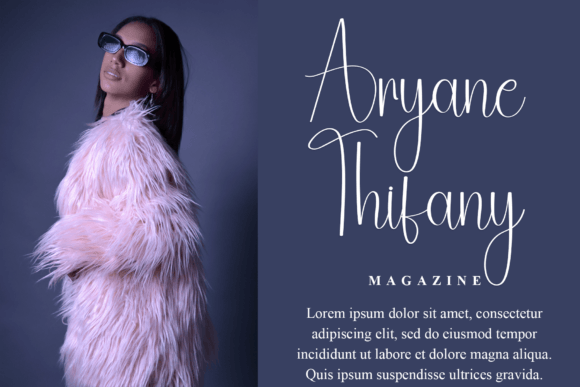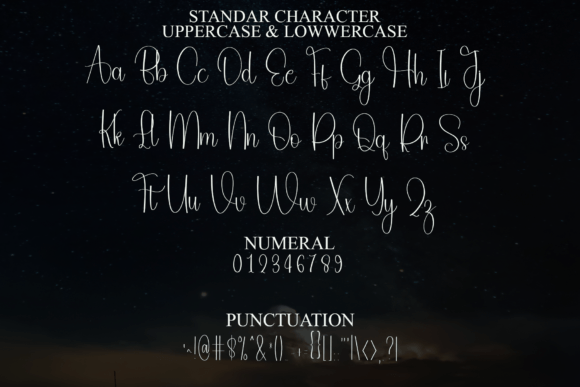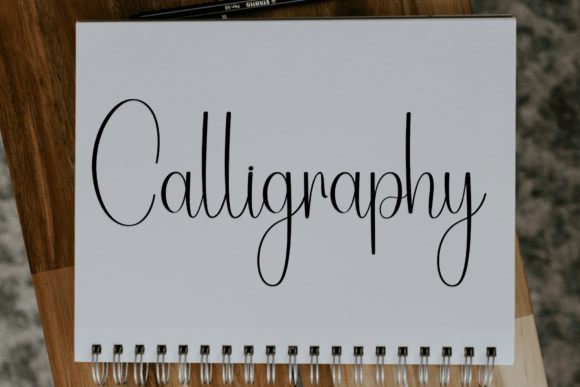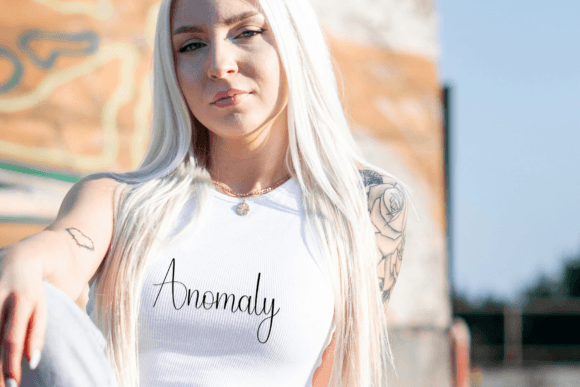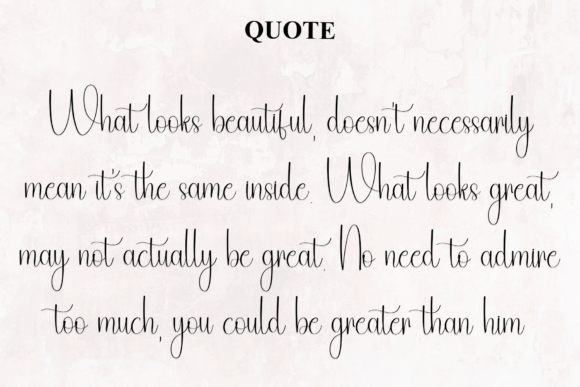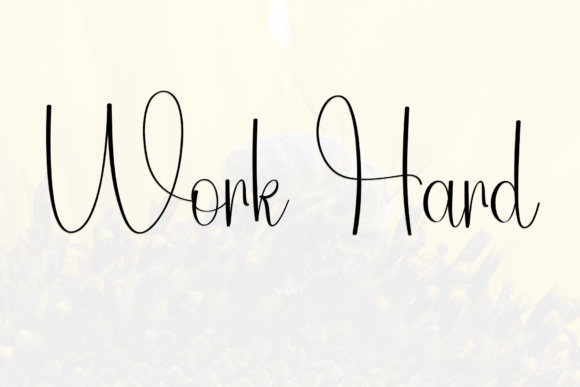
Diligent Font: Elevate Your Designs with Elegance and Sophistication
In the world of typography, fonts play a crucial role in conveying the tone and personality of a design. For crafters, designers, and anyone looking to add a touch of elegance to their projects, the Diligent Font is an excellent choice. This delicate, thin handwritten font is designed to bring a refined and personal touch to your creations, making it perfect for a variety of applications.
The Characteristics of Diligent Font
Diligent Font is characterized by its slender lines, which give it a soft, graceful appearance. This font is meticulously crafted to exude elegance and neatness, making it an ideal selection for designers who aim to create sophisticated and stylish designs. The thin strokes of the Diligent Font contribute to its refined look, setting it apart from more robust and bold fonts.
Why Choose Diligent Font?
There are several reasons why designers and crafters might prefer the Diligent Font for their projects:
• Elegant Appearance: The delicate and thin nature of the font gives it an inherently elegant look, suitable for designs that require a touch of sophistication.
• Versatility: Diligent Font can be used across various design projects, including but not limited to, branding, packaging, stationery, and digital media.
• Readability: Despite its thin lines, the Diligent Font maintains excellent readability, ensuring that your message is conveyed clearly and effectively.
• Personal Touch: The handwritten nature of the font adds a personal and humanizing element to designs, making them more relatable and engaging.
Applications of Diligent Font
The Diligent Font’s versatility and elegant appearance make it suitable for a wide range of applications:
• Branding and Logo Design: Use Diligent Font to create a sophisticated and memorable brand identity.
• Stationery and Invitations: Add a touch of elegance to your wedding invitations, greeting cards, and personal stationery.
• Digital Media: Enhance your website, blog, or social media graphics with the refined look of Diligent Font.
• Packaging: Stand out with elegant and eye-catching packaging designs that utilize the Diligent Font.
Tips for Using Diligent Font Effectively
To maximize the impact of the Diligent Font in your designs, consider the following tips:
• Pair with Complementary Fonts: Combine Diligent Font with other fonts that complement its elegance, such as bold sans-serifs or other refined scripts.
• Adjust Line Spacing: Ensure adequate line spacing to maintain readability and give your text a breathable, elegant look.
• Experiment with Colors: While the font itself is the focus, experimenting with different colors can help you find the perfect match for your design’s tone and theme.
The Diligent Font is a beautiful, elegant, and versatile typeface that can elevate your designs with its delicate and refined appearance. Whether you’re a designer looking for a sophisticated font for a client’s project or a crafter seeking to add a personal touch to your handmade goods, Diligent Font is an excellent choice. Its slender lines and graceful look make it perfect for creating designs that exude elegance and sophistication. By incorporating Diligent Font into your projects, you can achieve a refined and personal look that sets your work apart.
Discover the elegance of Diligent Font and bring a new level of sophistication to your designs. Explore its potential and let your creativity shine with this beautiful handwritten font.